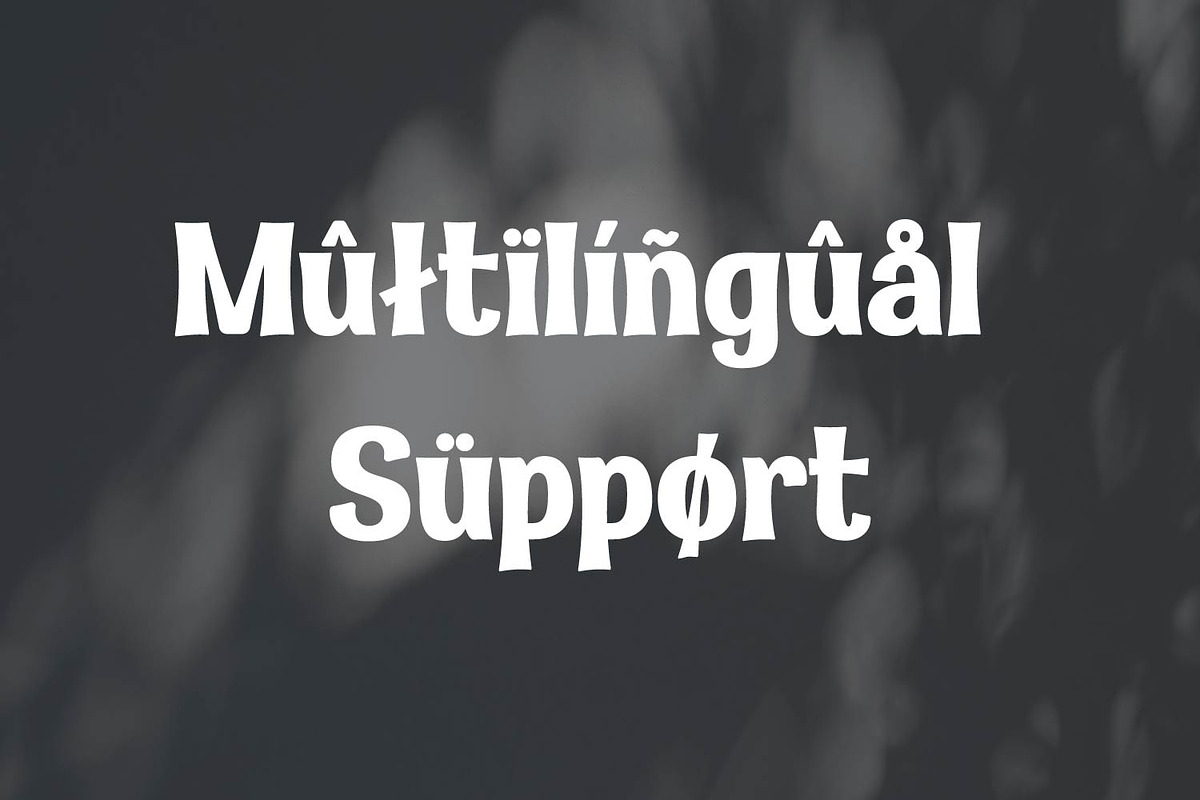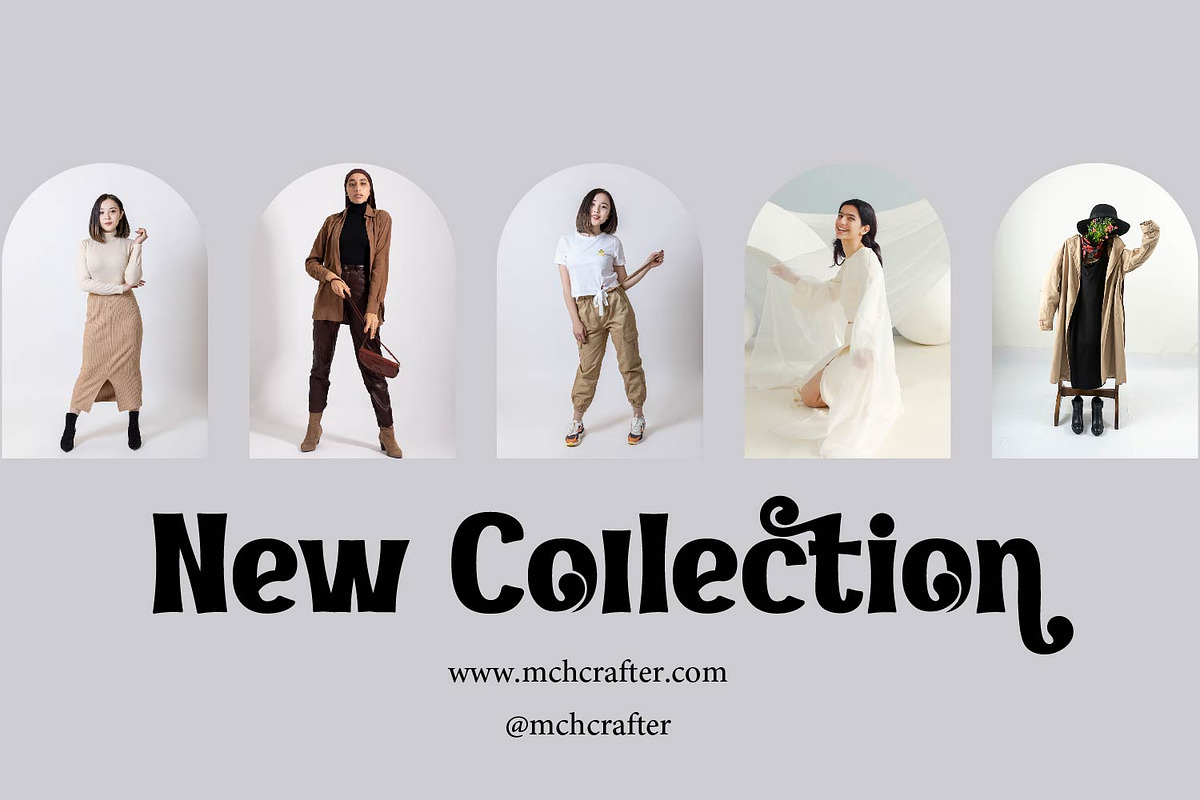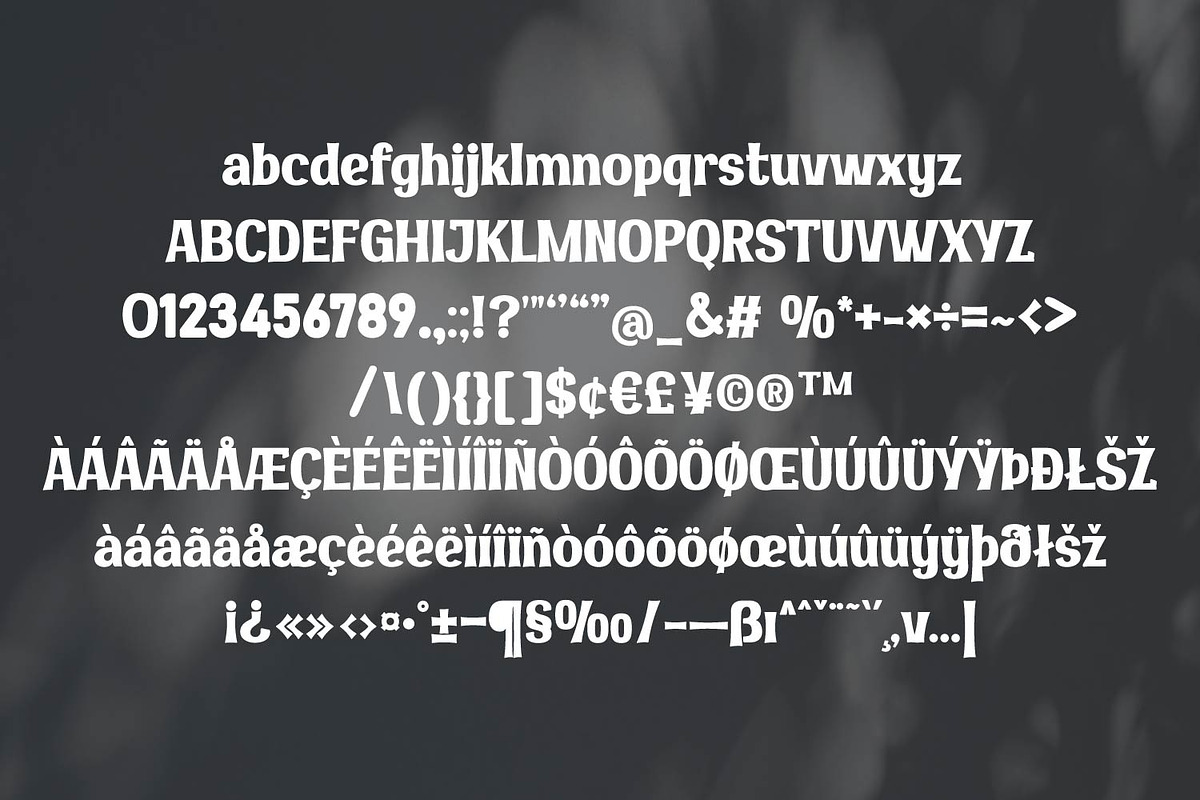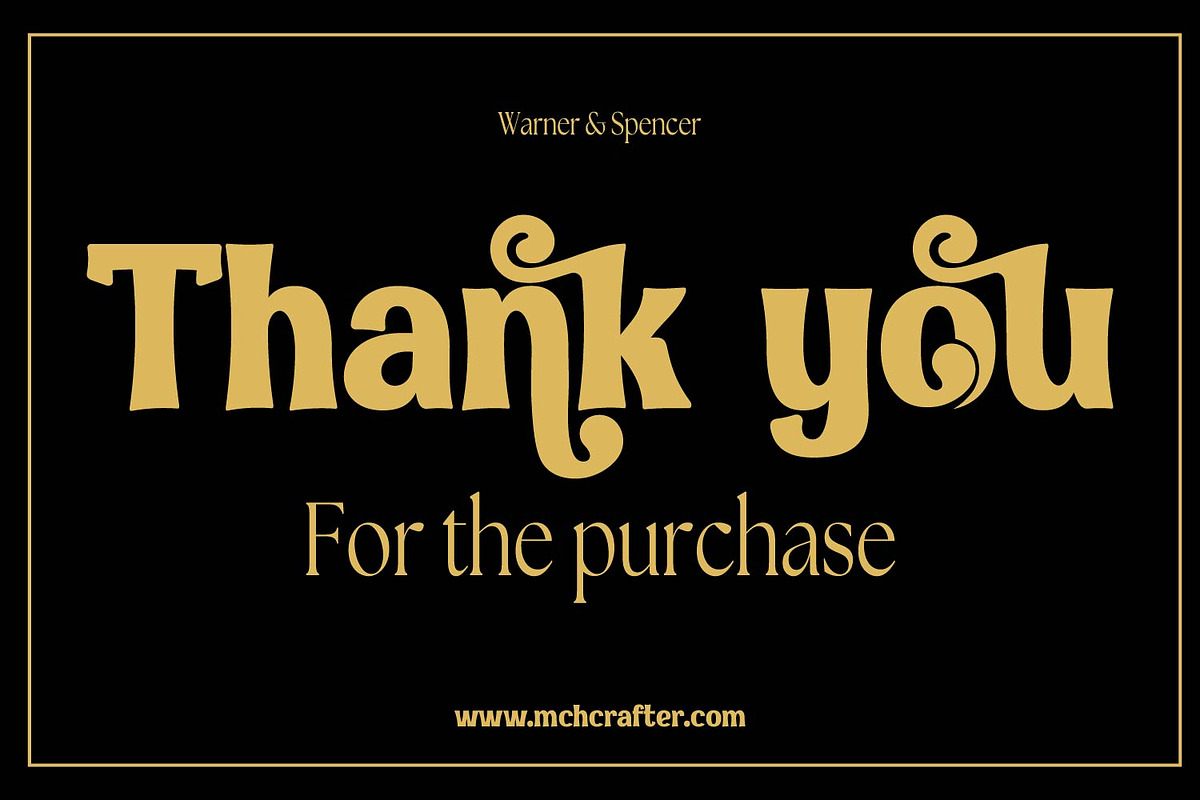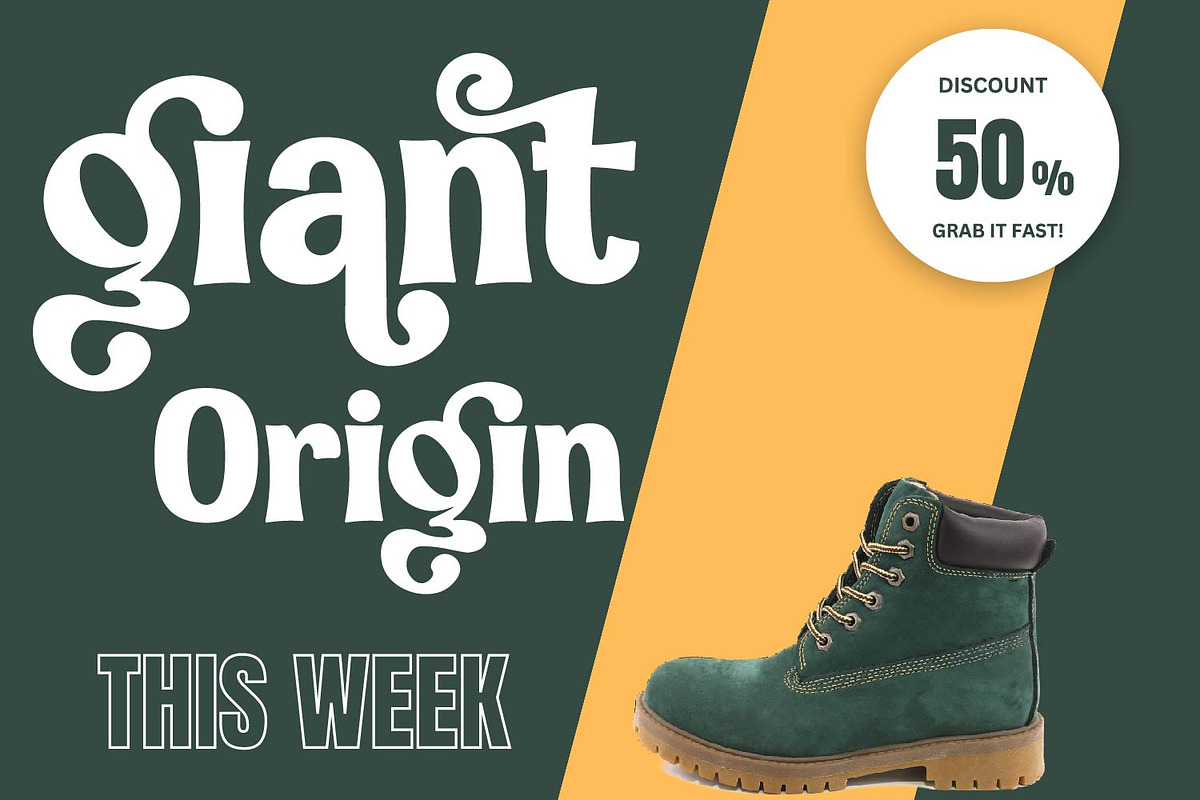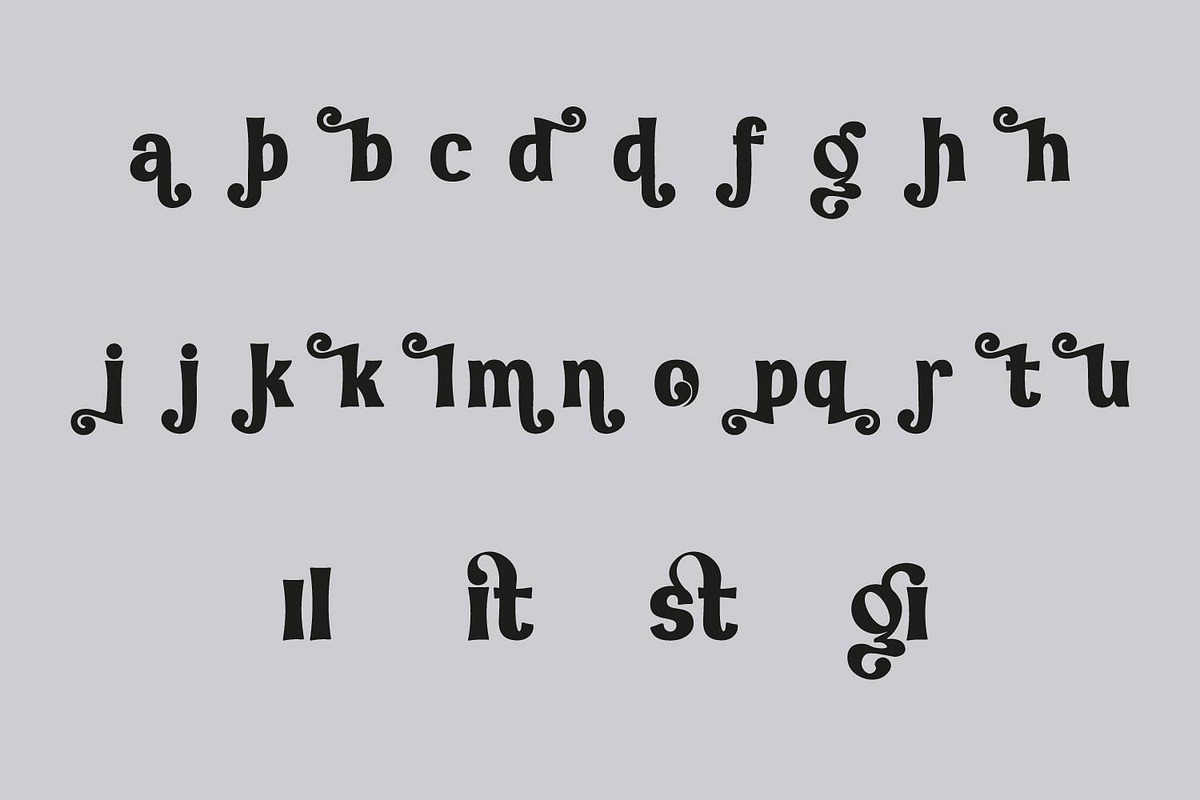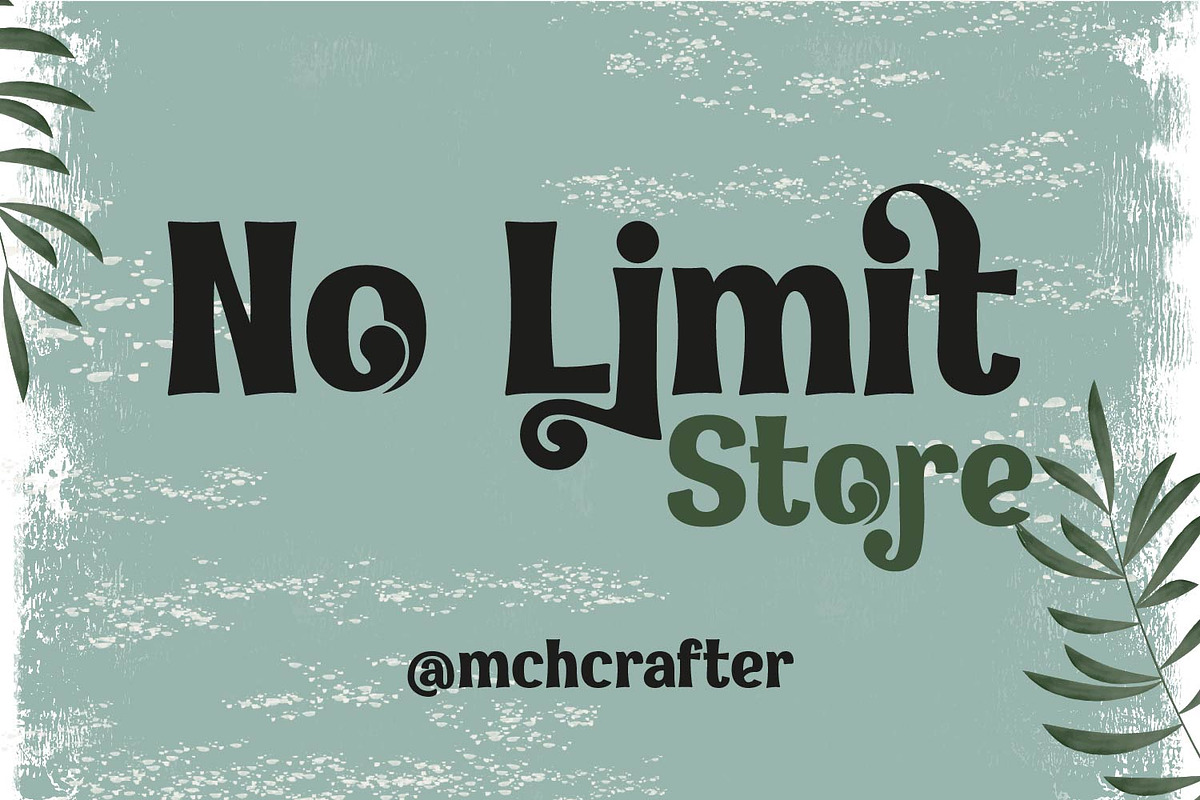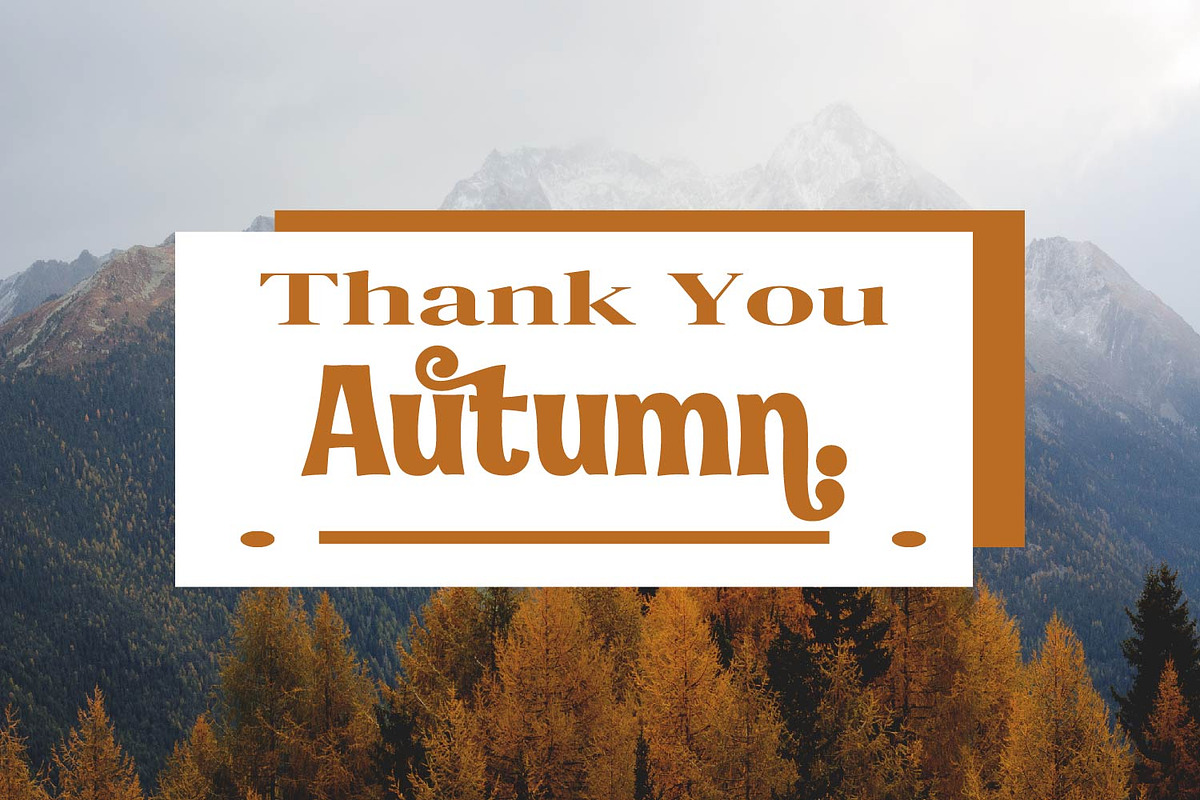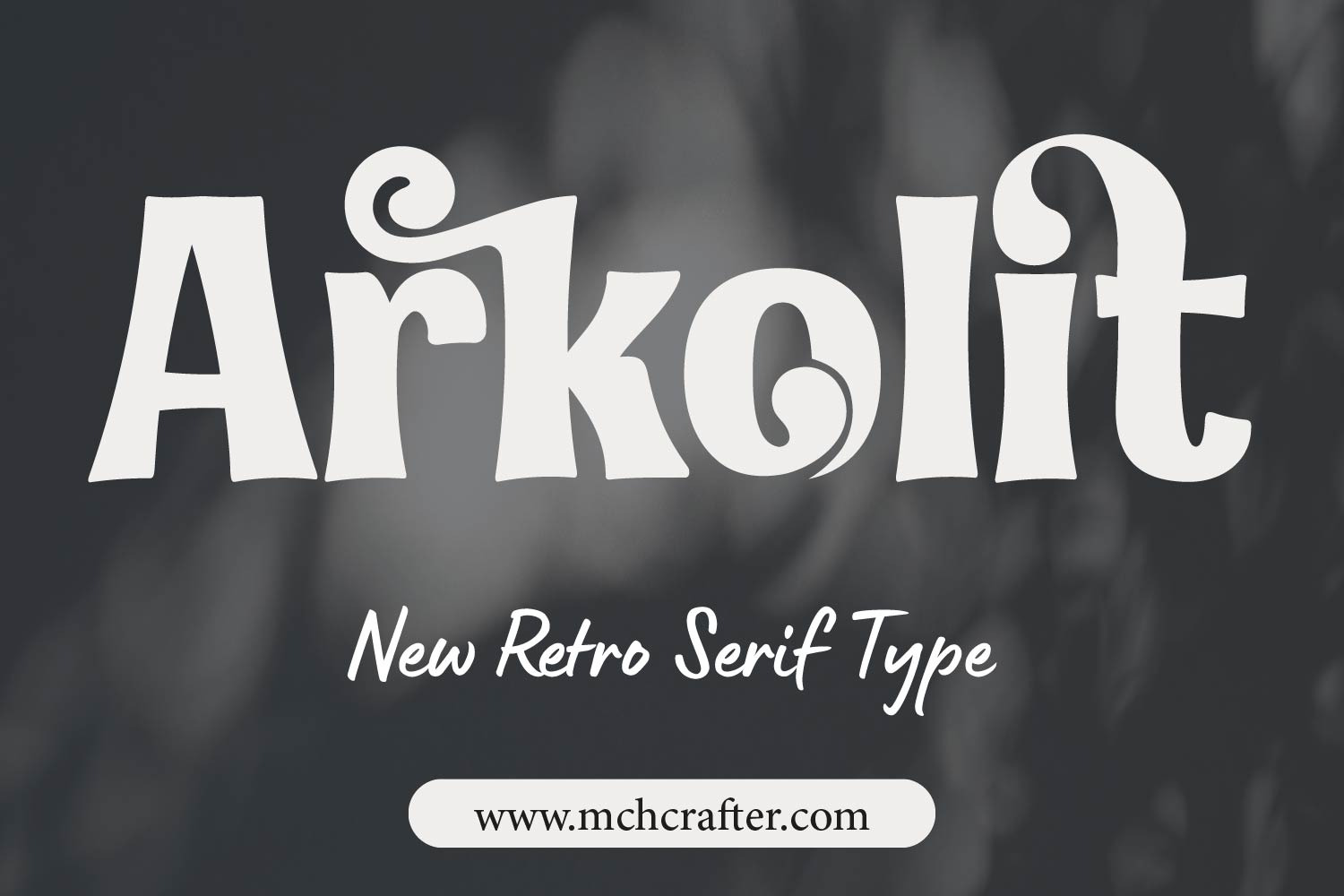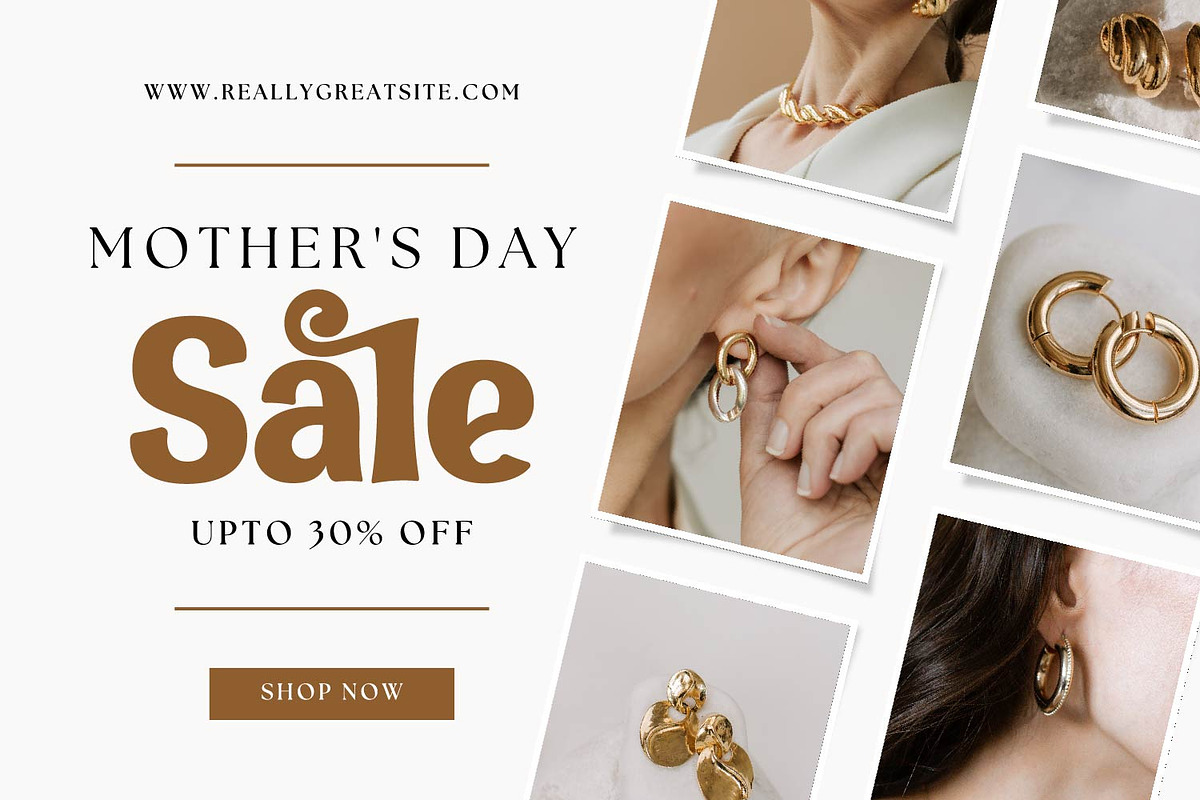
Arkolit | Modern Serif Display Font
Arkolit Font: Retro Serif Display Typeface
Introducing Arkolit, a retro serif typeface crafted specifically for branding needs. Designed with unique ligatures and alternate characters, this font adds a distinctive touch to any project, making it perfect for designers and product owners seeking a stylish and contemporary look.
Features of Arkolit Font:
- Complete Character Set: Includes all uppercase and lowercase letters.
- Numerals and Punctuation: Covers all numbers from 0-9 and essential punctuation marks.
- Ligatures and Alternates: Offers extra ligatures and alternate characters for unlimited creative variations.
- Symbols and Multilingual Support: Contains various symbols and supports multiple languages.